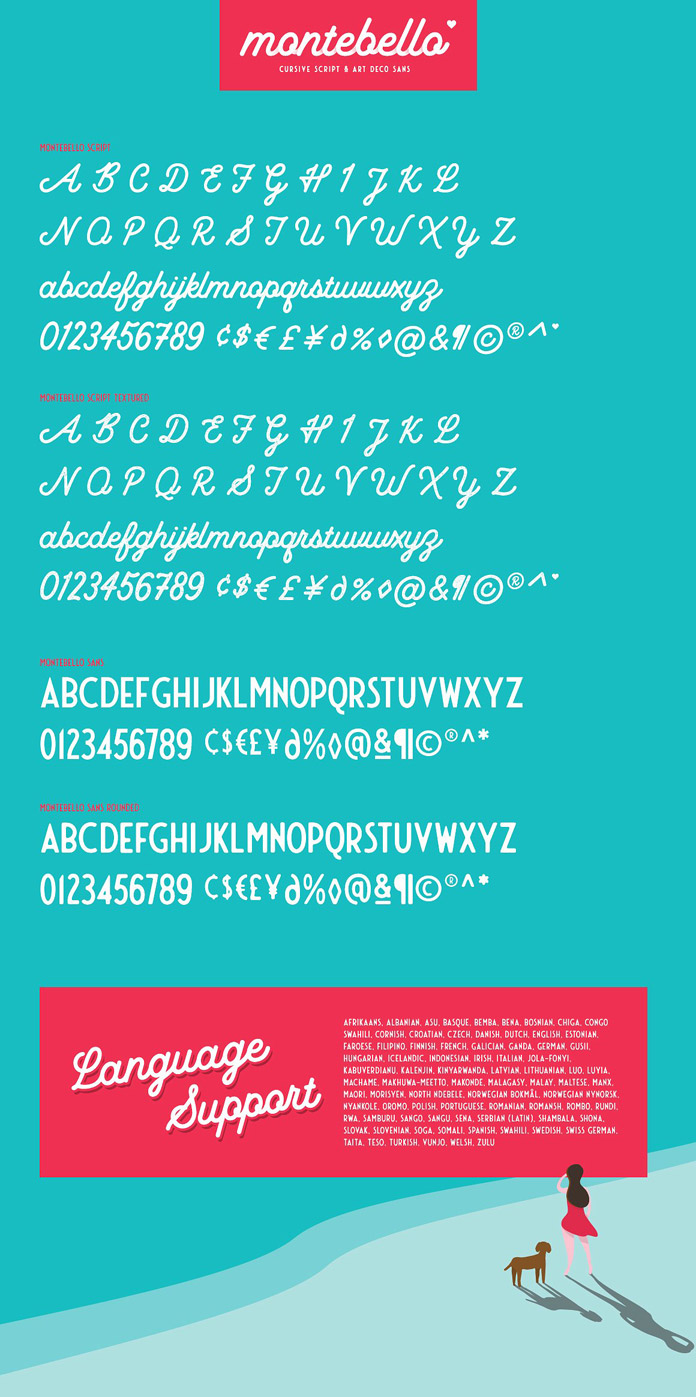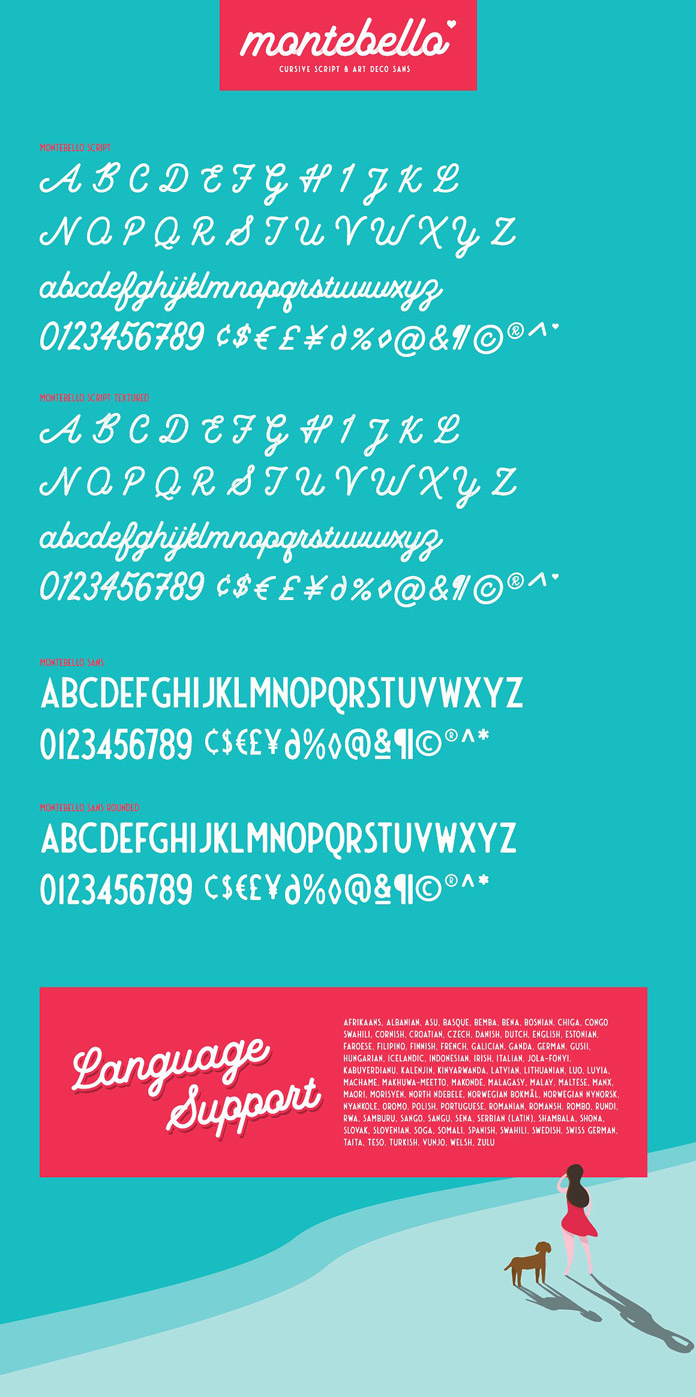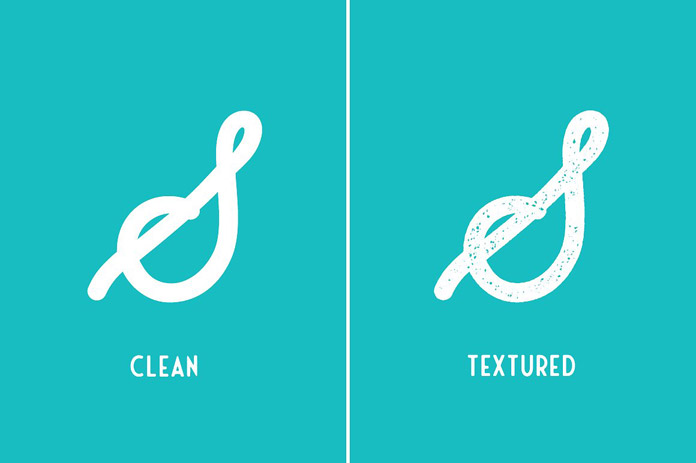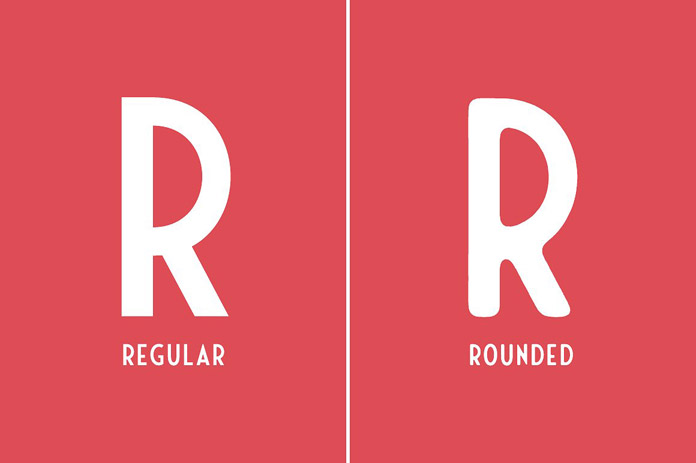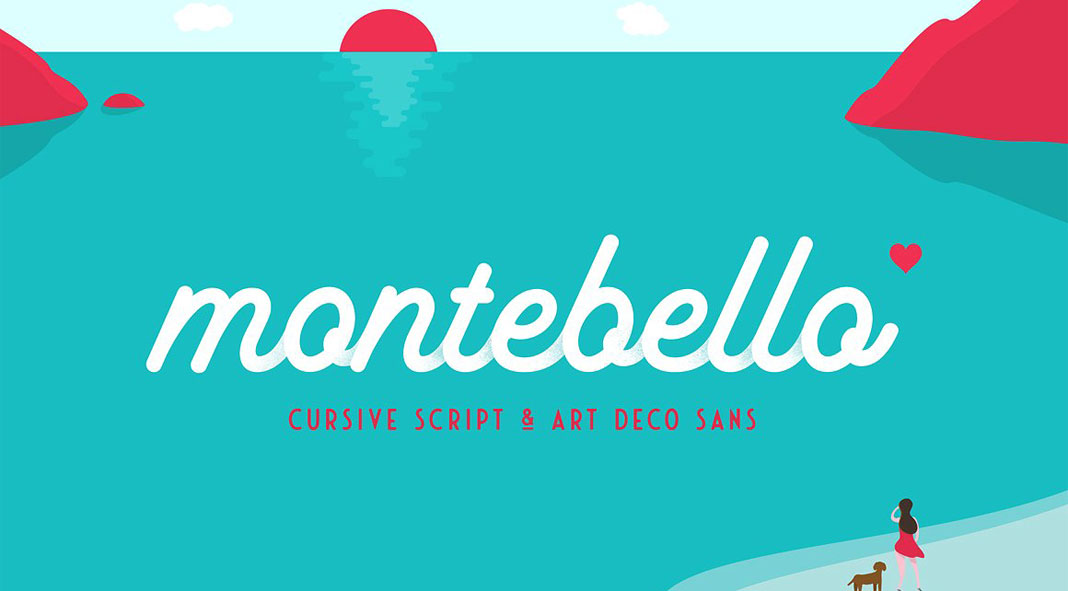
Montebello, a cursive script and Art Deco sans font collection designed by Ian Barnard.
Ian Barnard’s Montebello font collection is inspired by the relaxed feeling you have when laying on the beach. Just think of sipping on a chilled cocktail while feeling the warm sand between your feet. The complete collection consists of 4 styles: Montebello Script, Montebello Sans, Script Textured, and Sans Rounded. Check out more information below or click on the following link to get the family for low budget on Creative Market.
As already mentioned, the type collection includes 4 styles that can be mixed easily. The basic script version is based on a monoline cursive typeface, which is easy to read. The sans style draws inspiration from Art Deco designs. With its low contrast, it perfectly fits to the script version. Script Textured adds a grungy look to the standard script version. Sans Rounded has been designed to give the basic sans version a softer appearance.